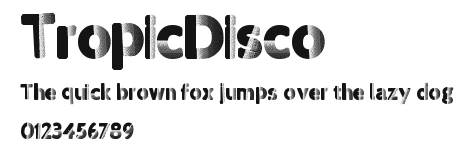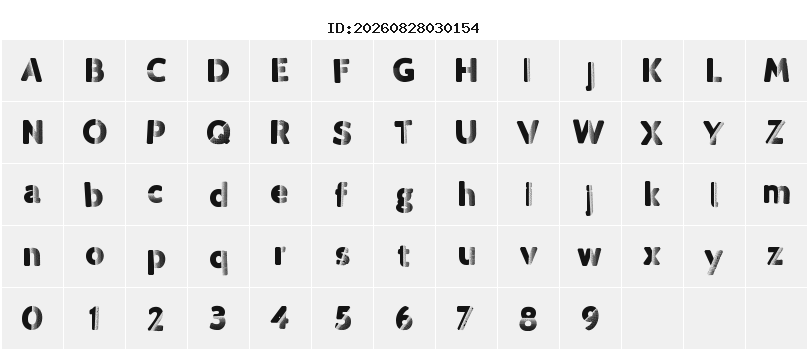
• Font Name: TropicDisco
• Designer: Xerographer Fonts Max Infeld
• Description: Made at Xerographer Studios in Ojai,CA
About TropicDisco.ttf
TropicDisco.ttf is a modern, elegant sans-serif font designed for ultimate readability and visual harmony. Perfect for branding, headlines, web design, and print materials.